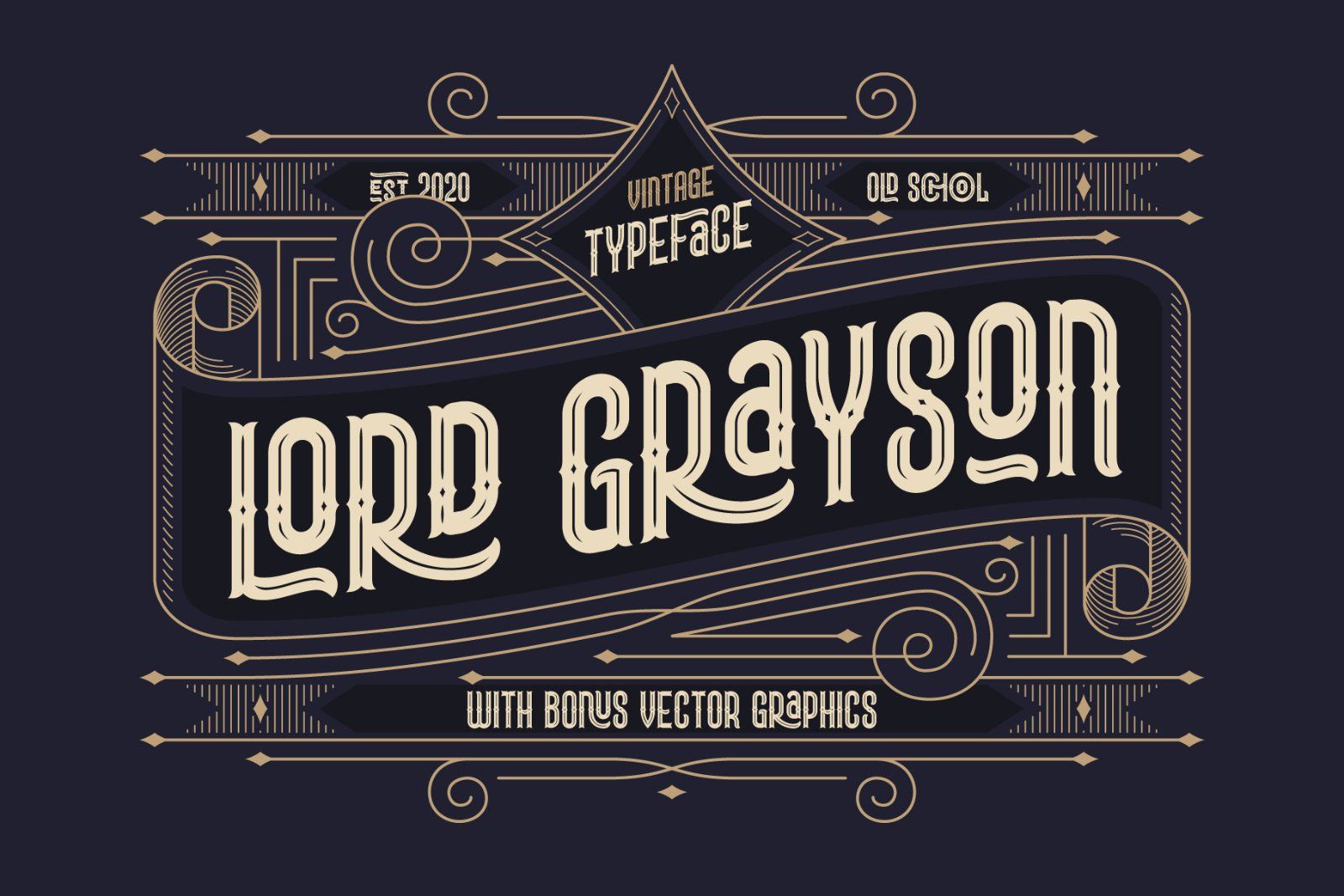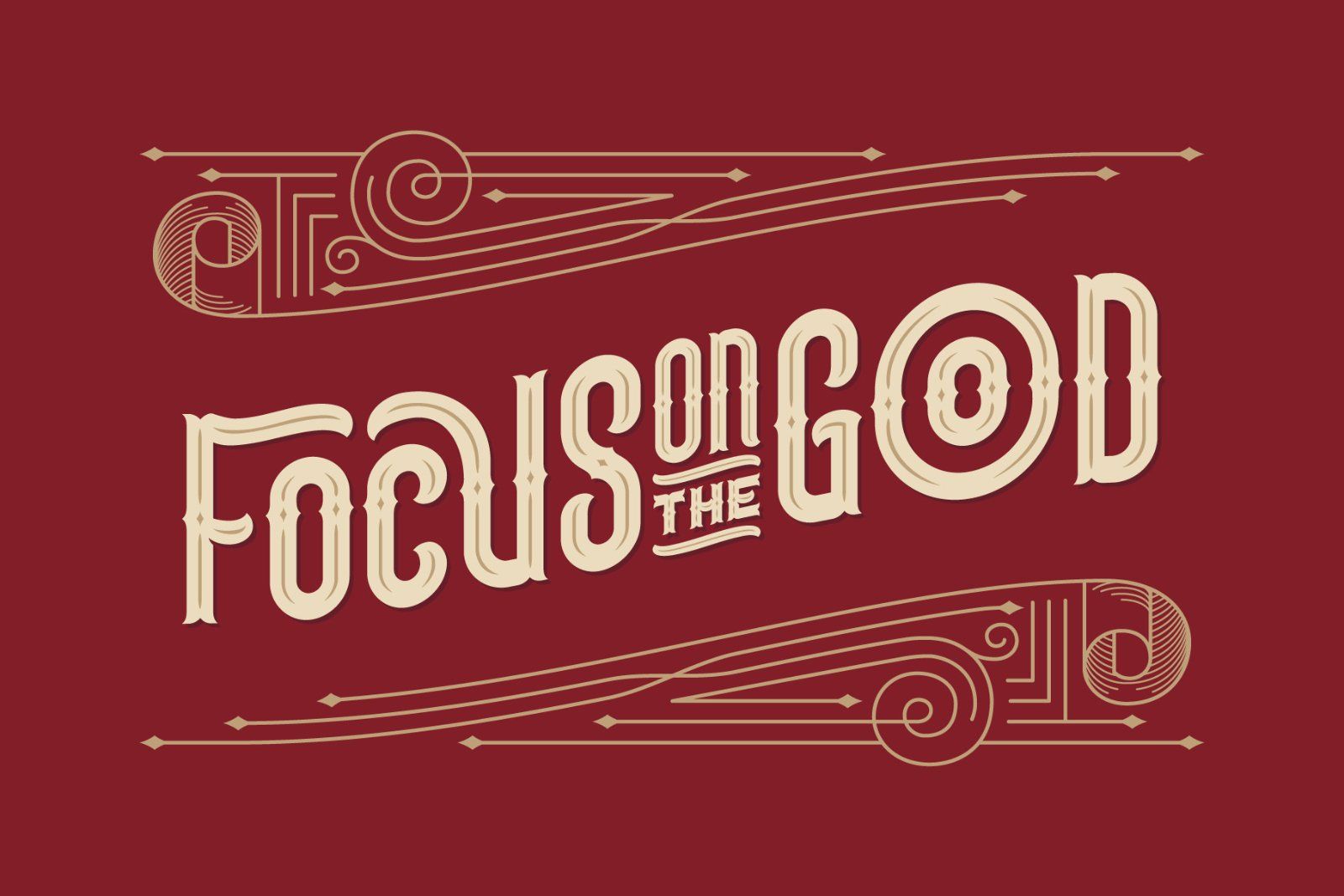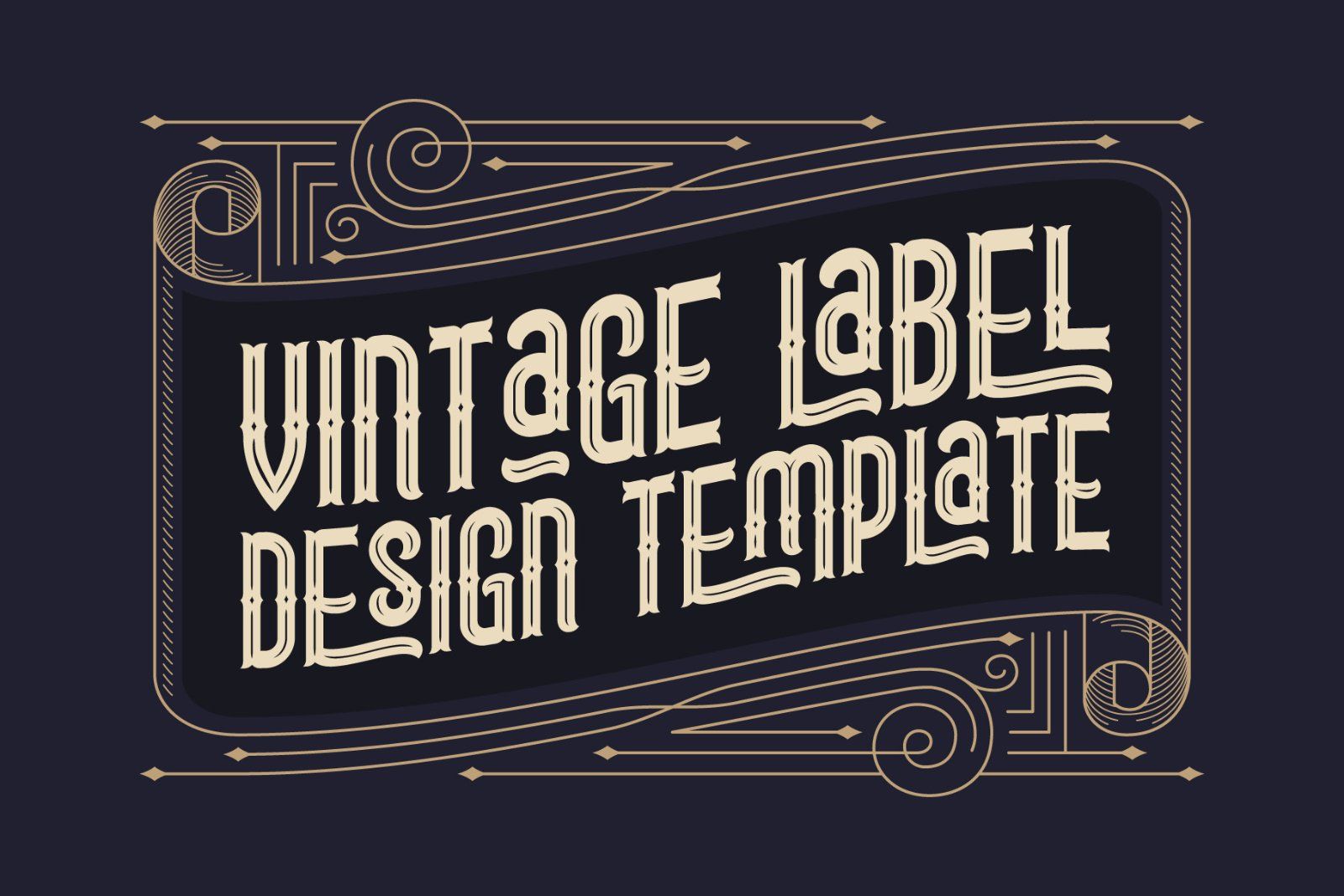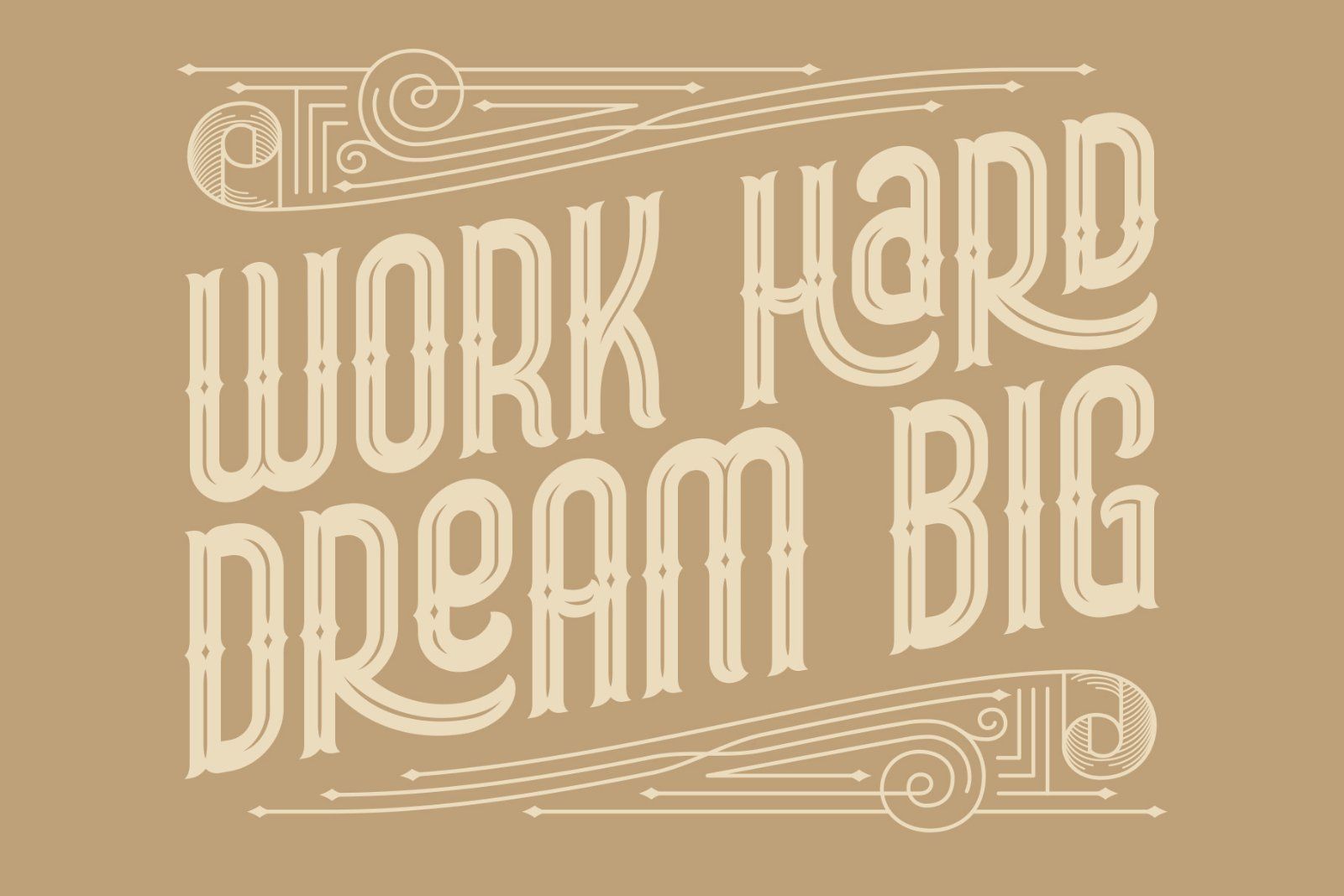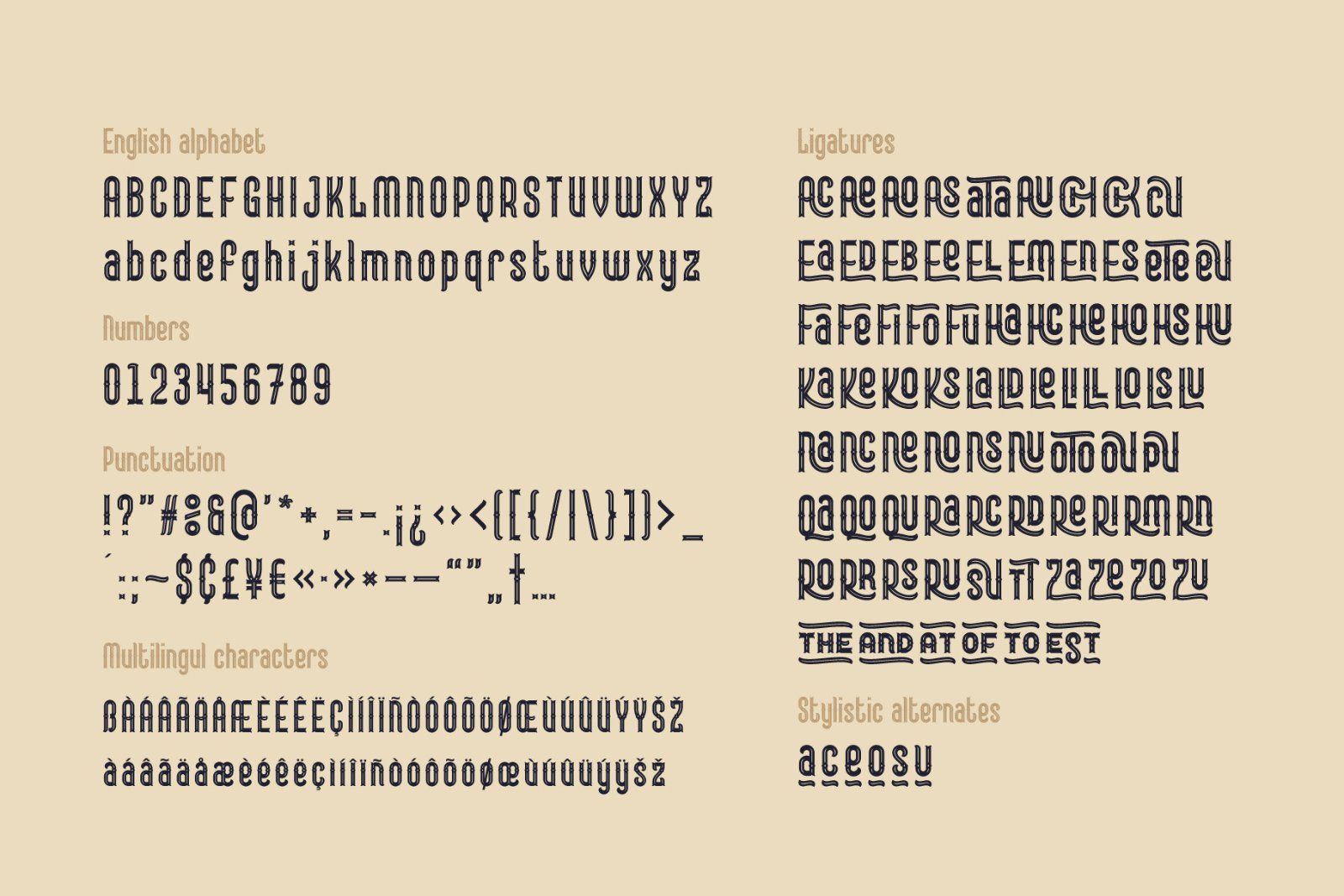
Introducing a vintage font "Lord Grayson". This typeface has a viktorian medieval look. It's a decorative classic style font with lot's of ligatures and stylistic alternates. This OpenType features will help you to create a unique lettering compositions.
Use capital letters to access all this features. Nevertheless it can be a quite simple font if you'll type a small letters, which can be useful for small supporting text. This font has a west European multilingual support (check out the screenshot with available characters).
Also you will get an editable vector design template with decorative ornate!